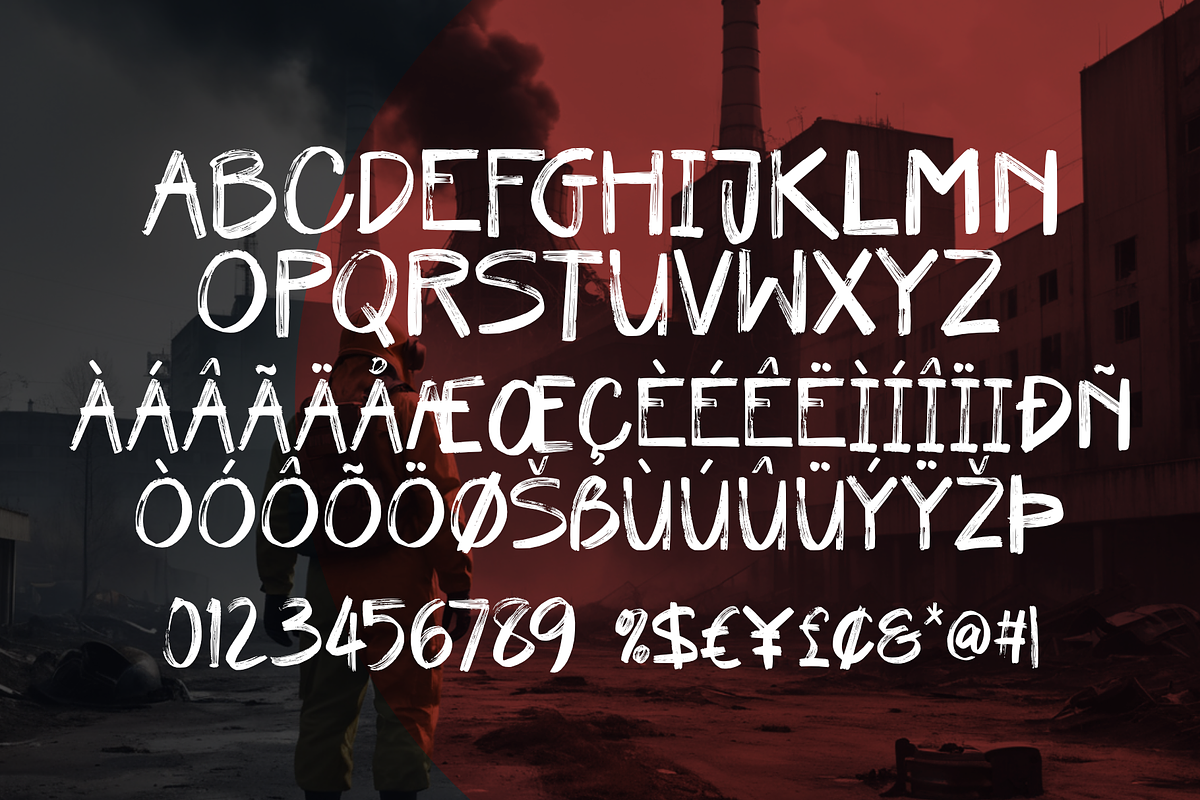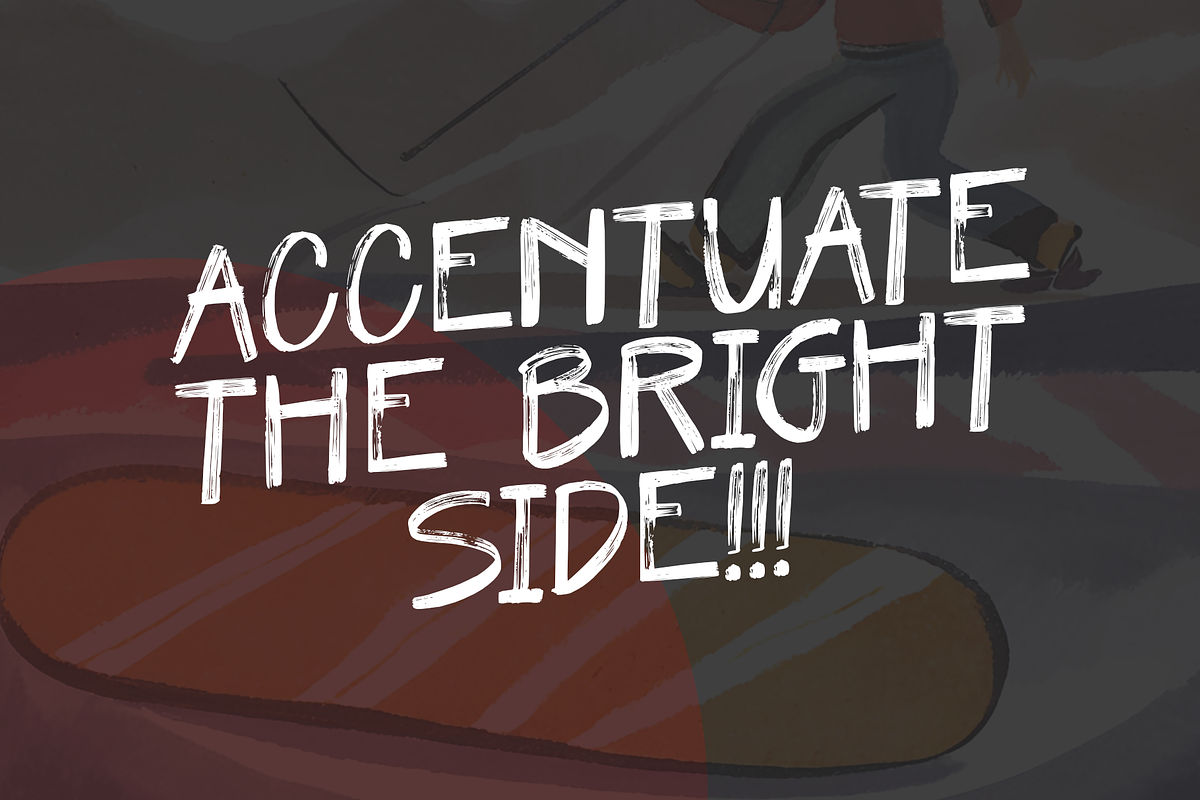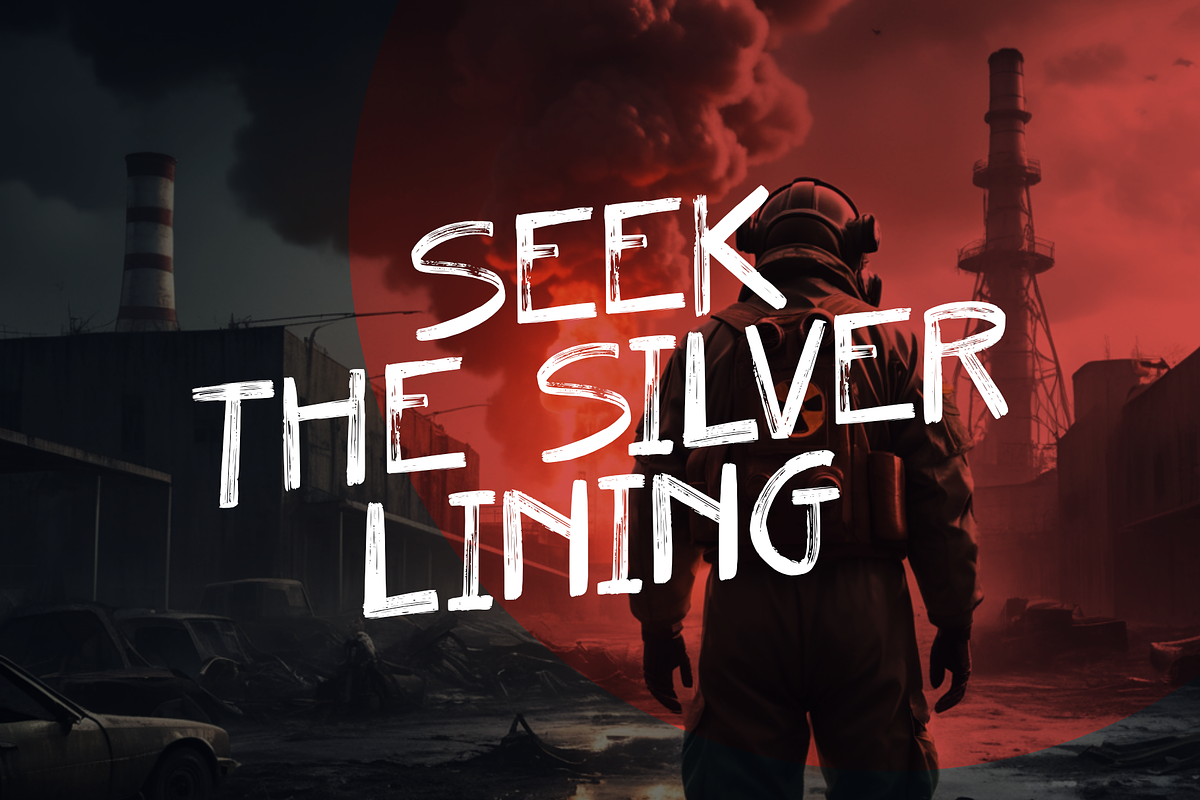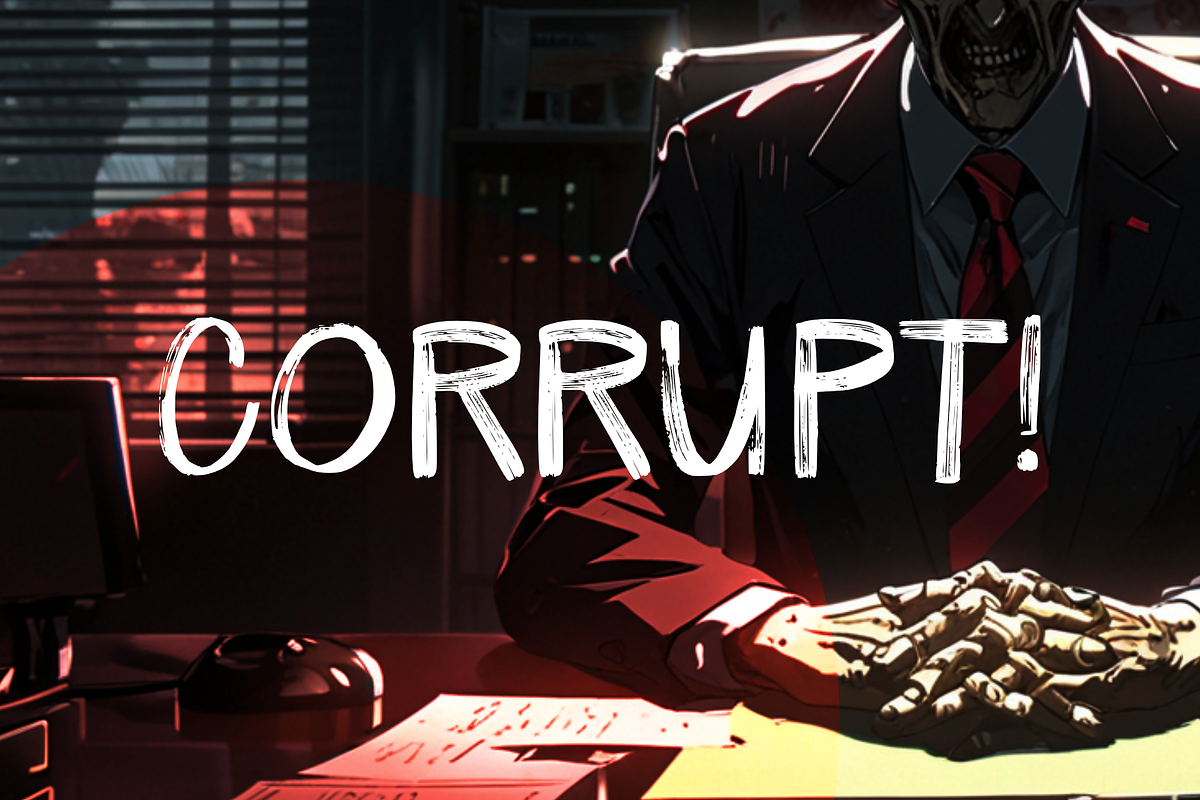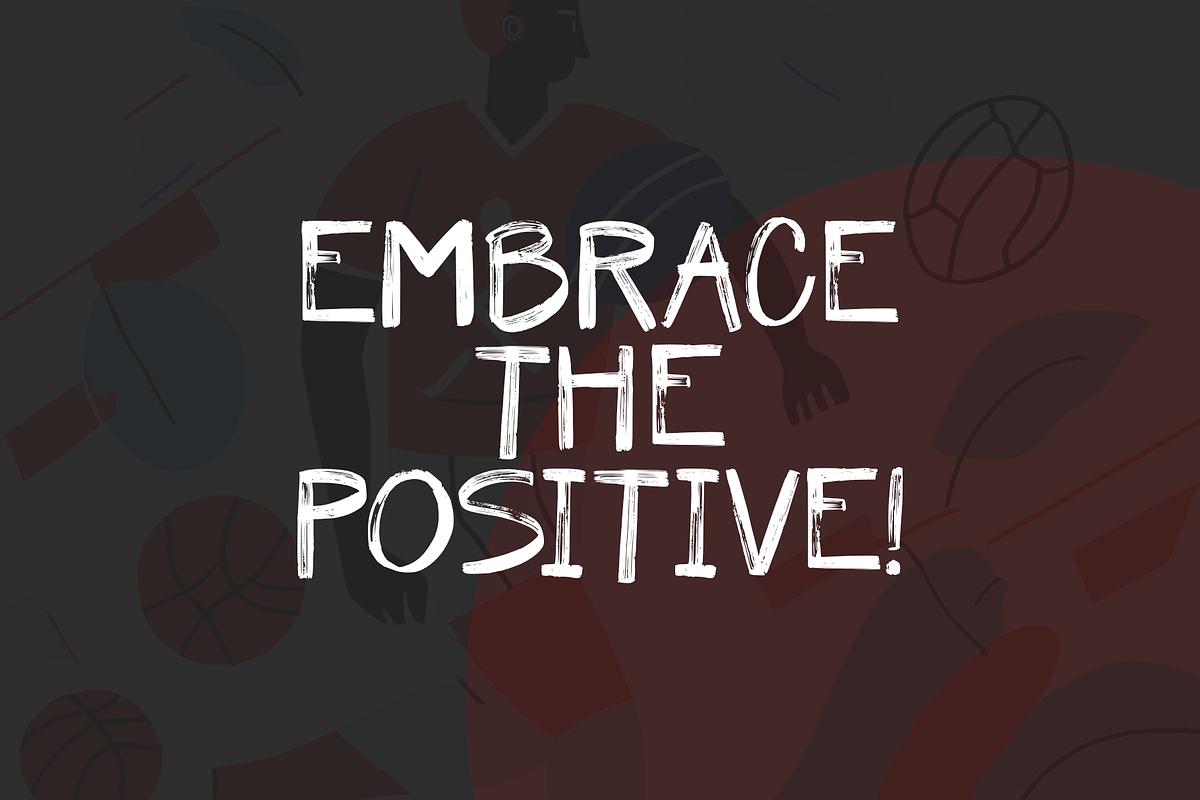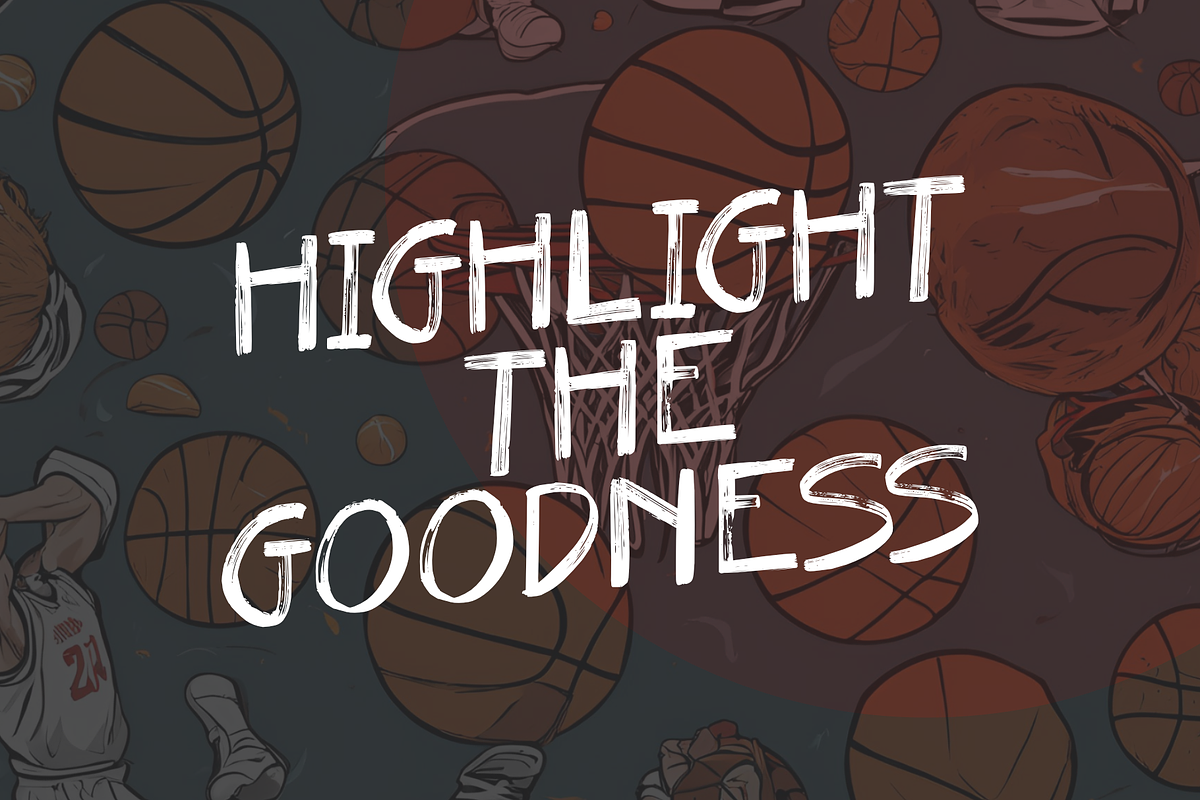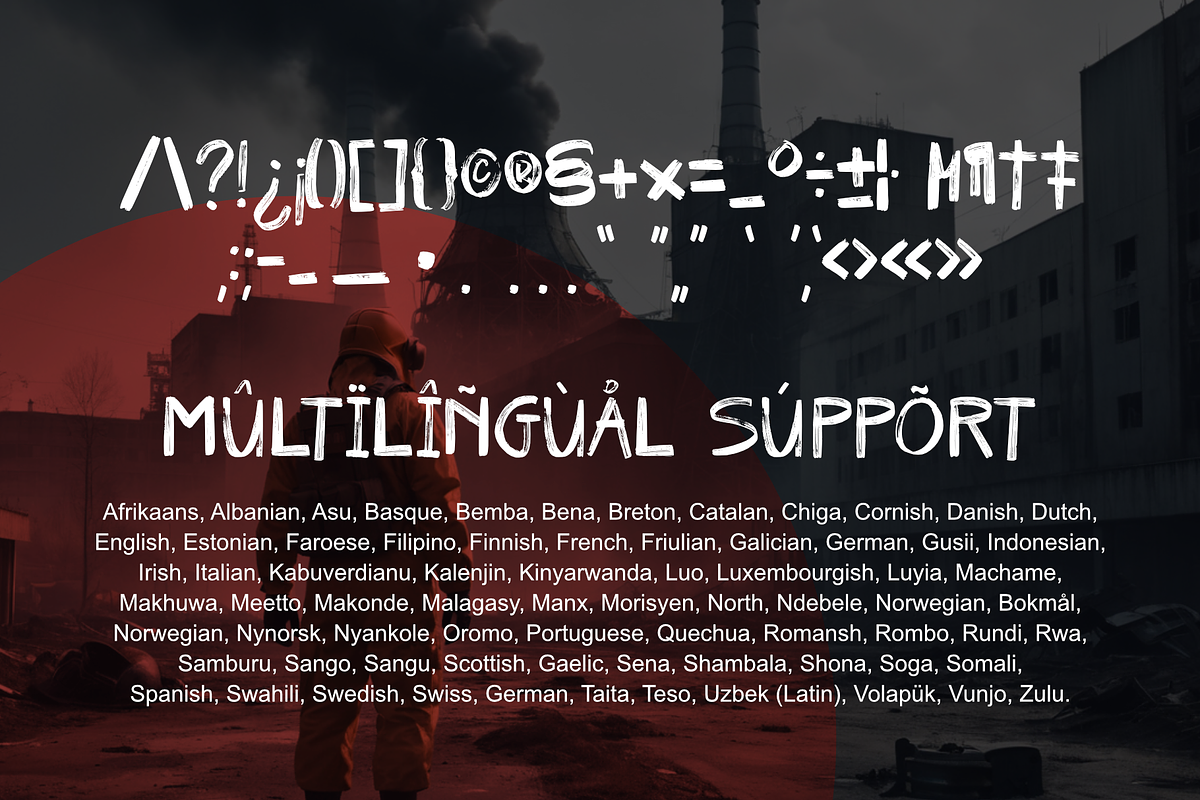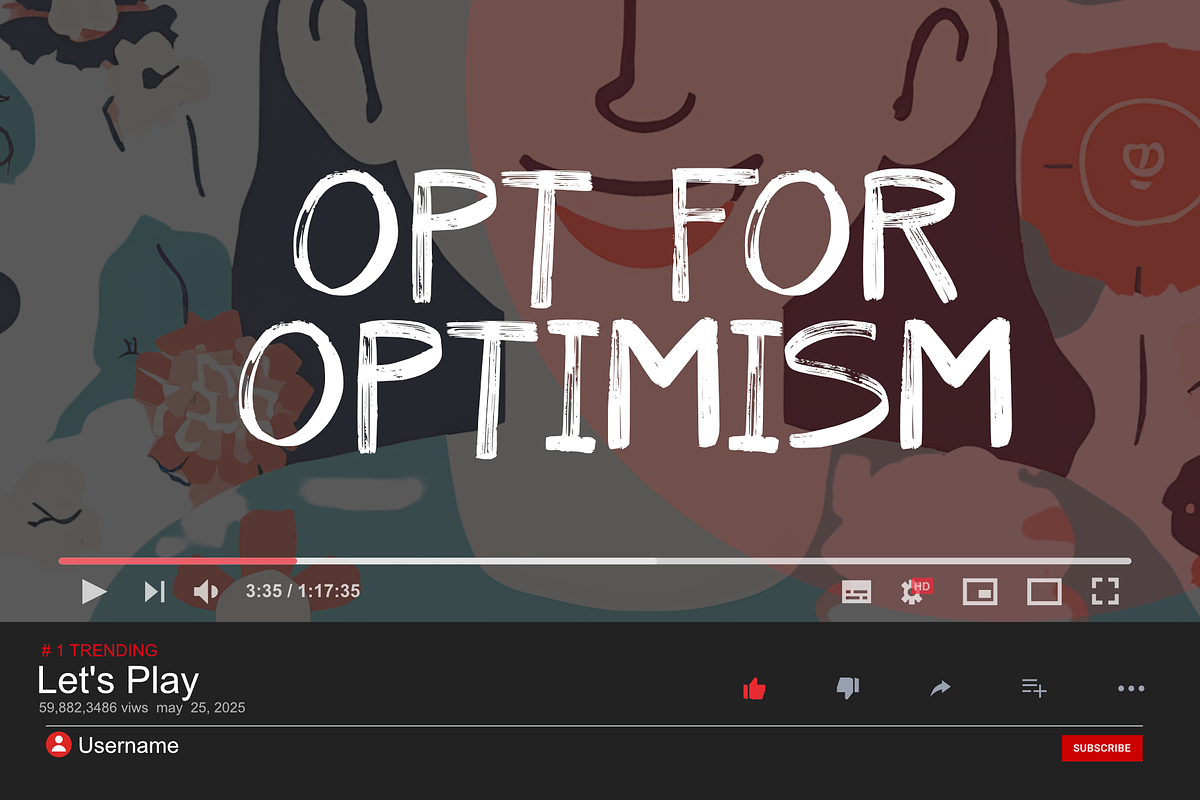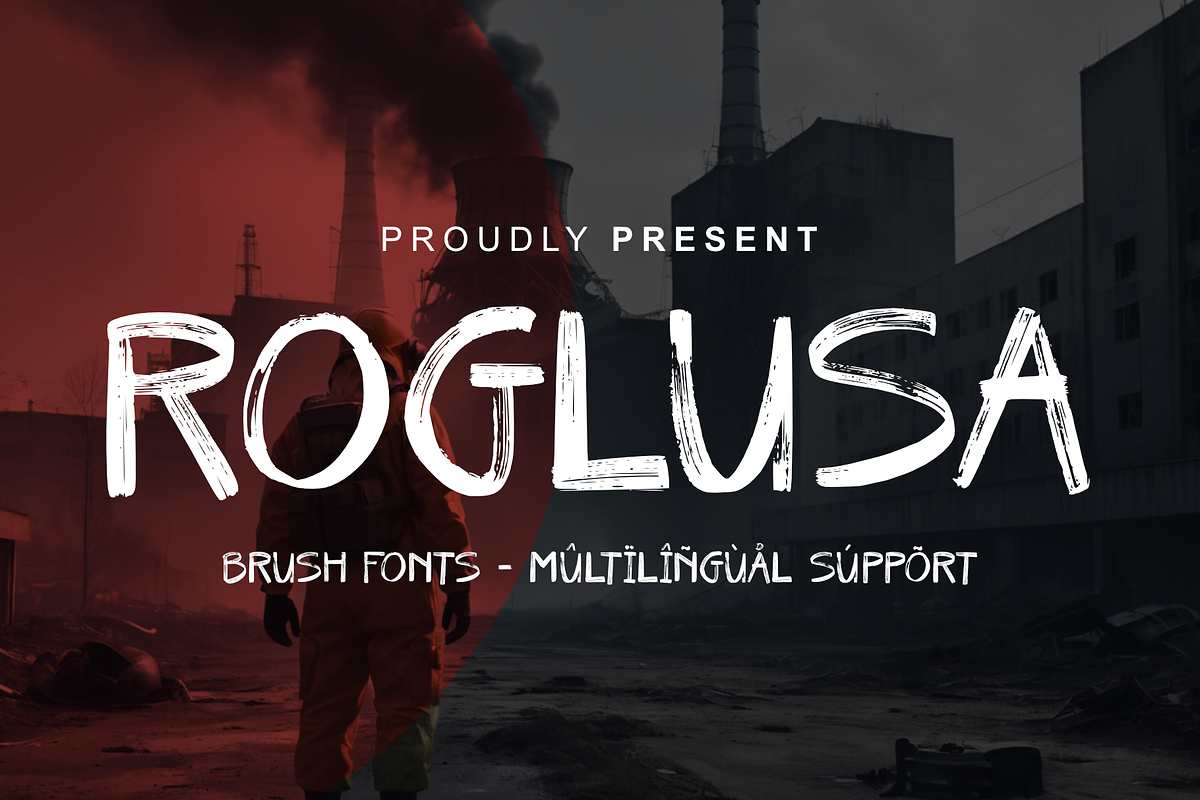
Roglusa - Brush
Roglusa Font is a perfect blend of energetic brush style and contemporary elegance. Crafted with meticulous detail, each letter is designed to showcase beauty and assertiveness in every character.
Roglusa comes in an ALL CAPS style that exudes strength and clarity, ideal for various design purposes such as branding products, films, packaging, social media, books, and more. With elegance in every stroke, this font captures attention without overwhelming.
More than just a communication tool, this font is a work of art that transforms the visual message into something memorable. Roglusa is here to provide unique character and identity to every design project you undertake.
- Multilingual Accent
These Font Support Languages:
Afrikaans, Albanian, Asu, Basque, Bemba, Bena, Breton, Catalan, Chiga, Cornish, Danish, Dutch, English, Estonian, Faroese, Filipino, Finnish, French, Friulian, Galician, German, Gusii, Indonesian, Irish, Italian, Kabuverdianu, Kalenjin, Kinyarwanda, Luo, Luxembourgish, Luyia, Machame, Makhuwa, Meetto, Makonde, Malagasy, Manx, Morisyen, North, Ndebele, Norwegian, Bokmål, Norwegian, Nynorsk, Nyankole, Oromo, Portuguese, Quechua, Romansh, Rombo, Rundi, Rwa, Samburu, Sango, Sangu, Scottish, Gaelic, Sena, Shambala, Shona, Soga, Somali, Spanish, Swahili, Swedish, Swiss, German, Taita, Teso, Uzbek (Latin), Volapük, Vunjo, Zulu.